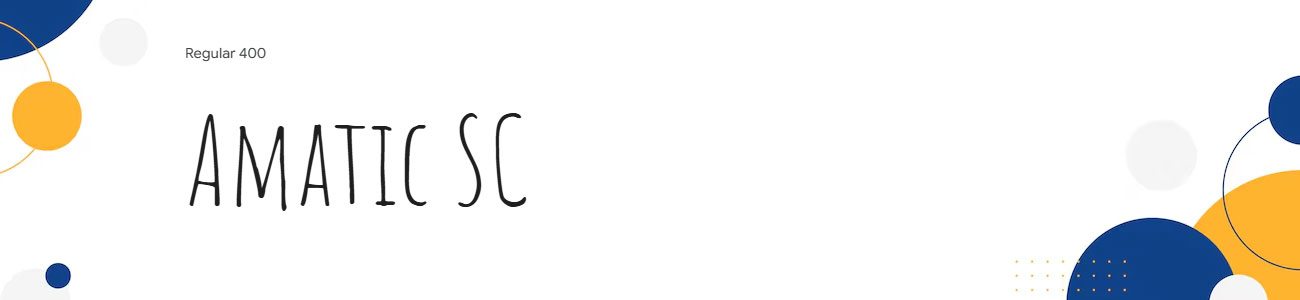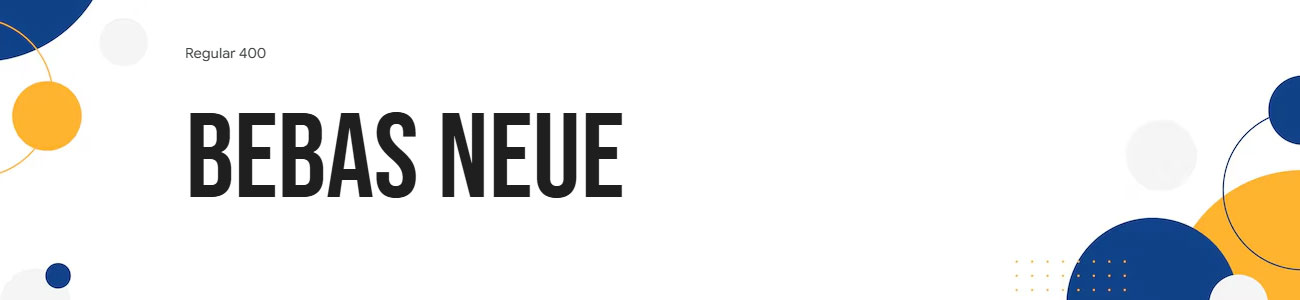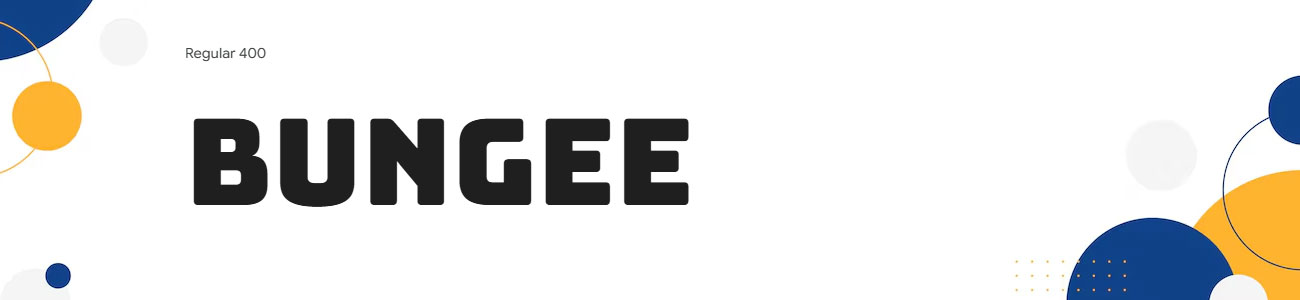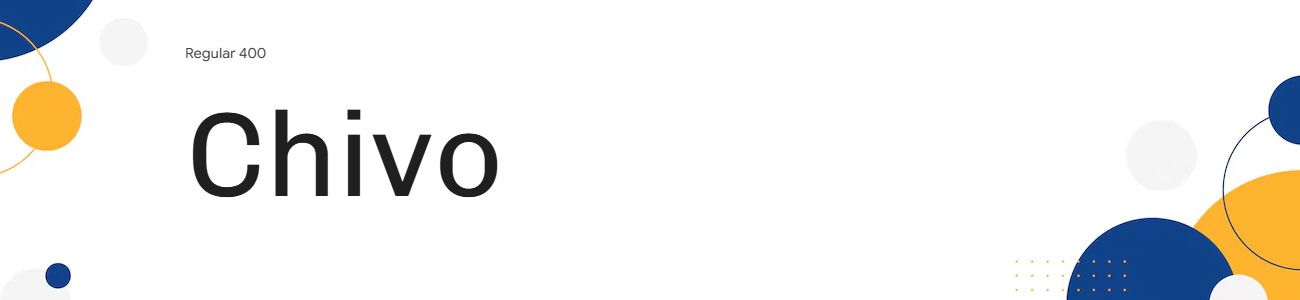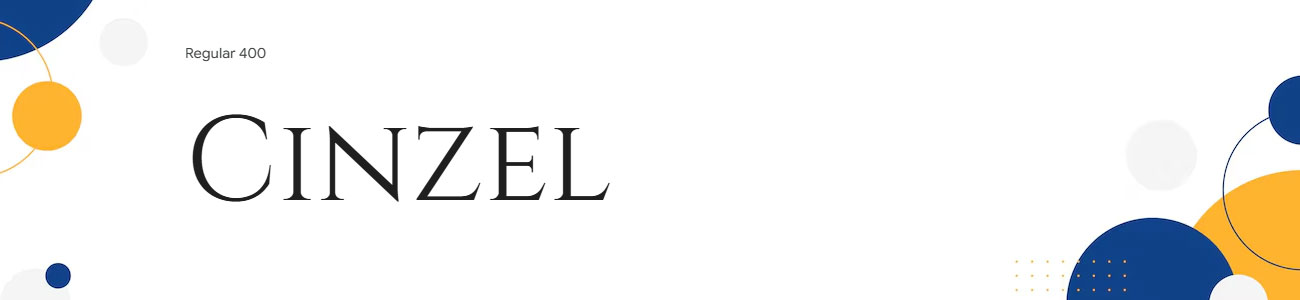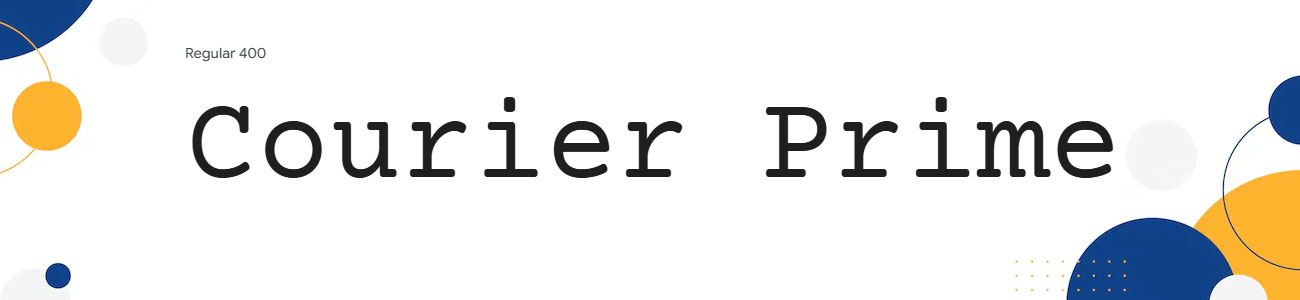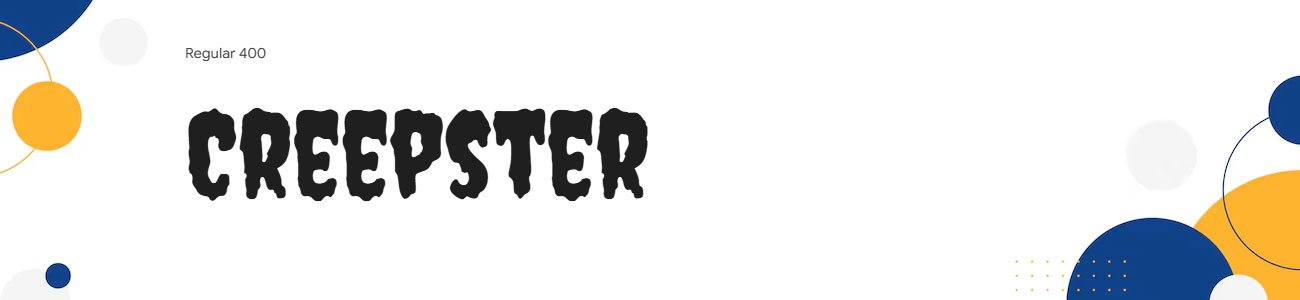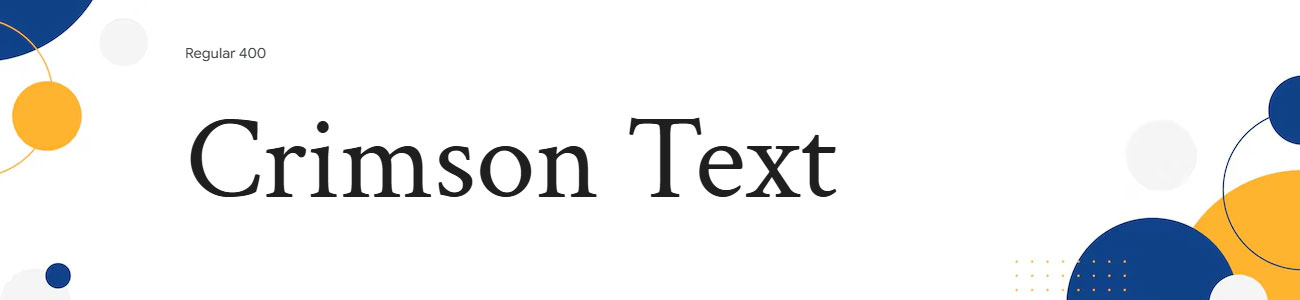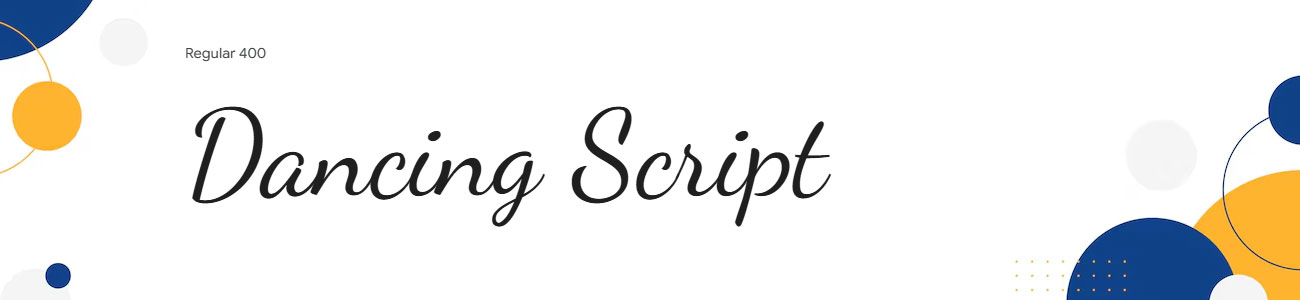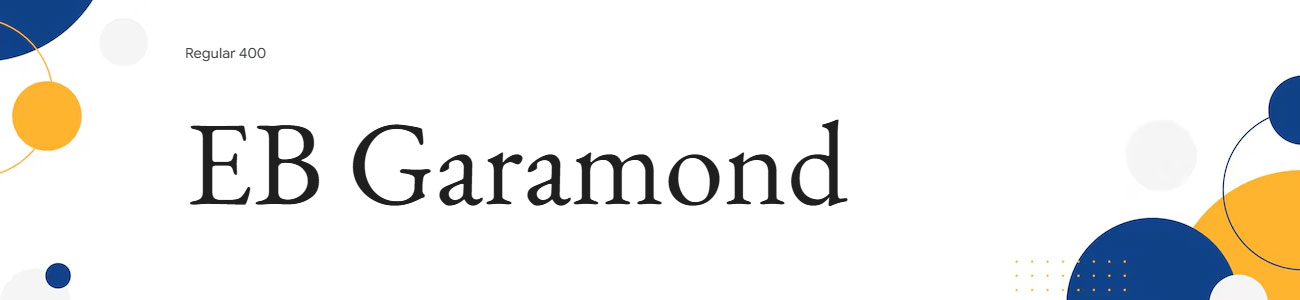
Google Fonts: The Top Free Picks You Need to Try
Typography can play a vital role in design, branding and readability. Regardless of the project a website, logo, social network post or printed material the right Google Fonts selection can make all the difference. Choosing the right font helps to create an aesthetic for your project and also helps with better engagement of the user and makes it easily readable. This is to lend a helping hand in elevating your designs, and we’ve put together a list of 50 of the best free fonts out there today. These Fonts are suitable for multiple use cases, they can be used for fonts for websites, fonts for logos, and Google typography projects. Best of all, they’re free to download and use!Why Typography Matters in Desig
Why Typography Matters in Design
Typography is not just choosing a nice font; it’s building a visual hierarchy, establishing a tone, and effectively communicating your message. Here’s why it’s essential:
• Brand Identity: Selecting the correct font can complement your brand’s unique personality, be it modern, classic, or playful.
• Legibility: A great font will make your content readable, whether for screens or printing.
• User Experience: The username is unique and appears at the top, while the display name can be non-unique and include special characters.
• Visual Interest: You can use fonts to inject style and personality into your designs.
Best Fonts for Websites
Readability and versatility are two essentials for making a good font choice, especially on a website. Roberto, Open Sans and Lato are some clean and cyber look fonts which are used as it is modern and optimized for screens. These fonts ensure that your website appears professional and is simple to navigate.
Serif Fonts (Classic & Elegant)
These serif fonts are elegant and time-efficient, making them ideal for any project. The classic and professional style of these fonts is well-matched in editorial designs, branding, and print materials.
Playfair Display Font
Perfect for elegant branding and editorials.
EB Garamond Font
A timeless and readable font for print and digital.
Lora Font
Beautifully balanced for readability and sophistication.
Crimson Text Font
Great for book publishing and classic designs.
Merriweather Font
Designed for comfortable reading on screens.
Sans-Serif Fonts (Modern & Clean)
A minimalistic and clean appearance is a common feature of modern websites, apps (and often branding), which Sans-serif fonts are. These items are both highly readable and have a contemporary design.
Poppins Font
A geometric sans-serif with a friendly feel.
Montserrat Font
A favorite for websites and branding.
Raleway Font
Elegant and suitable for headlines.
Inter Font
Optimized for readability in UI/UX designs.
Nunito Font
A rounded sans-serif that feels approachable.
Display Fonts (Bold & Attention-Grabbing)
Display fonts are intended to be visually appealing. They're a bold and distinctive design that works well with headlines, posters, and logos.
Oswald Font
A bold typeface great for headlines.
Anton Font
Impactful and ideal for posters.
Bebas Neue Font
A tall, narrow font that stands out.
Archivo Black Font
Perfect for eye-catching titles.
Luckiest Guy Font
A playful font with a retro vibe.
Handwritten & Script Fonts (Elegant & Personal)
Your designs become more personal with the use of handwritten and script fonts. The fonts are well-suited for invitations, logos and projects that require a touch of humanist craftsmanship.
Dancing Script Font
A flowing cursive font.
Pacifico Font
Fun and relaxed, great for casual designs.
Great Vibes Font